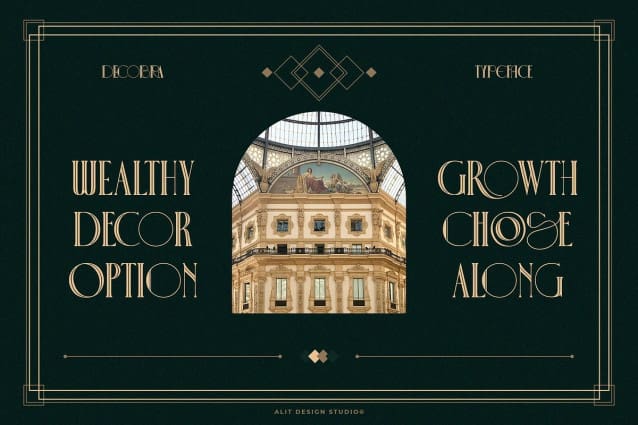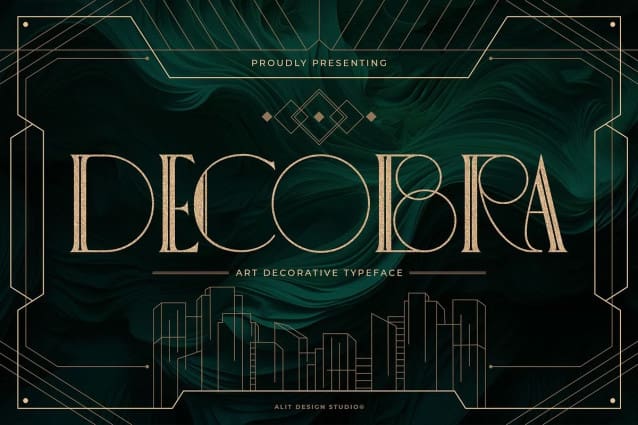
Decobra Font
Decobra Font, a one-of-a-kind Art Deco typeface that exudes elegance and modern sophistication. Perfectly balancing dynamic thick and thin strokes, Decobra’s charm lies in its striking two-line body, making it an extraordinary choice for vintage-inspired yet contemporary projects.